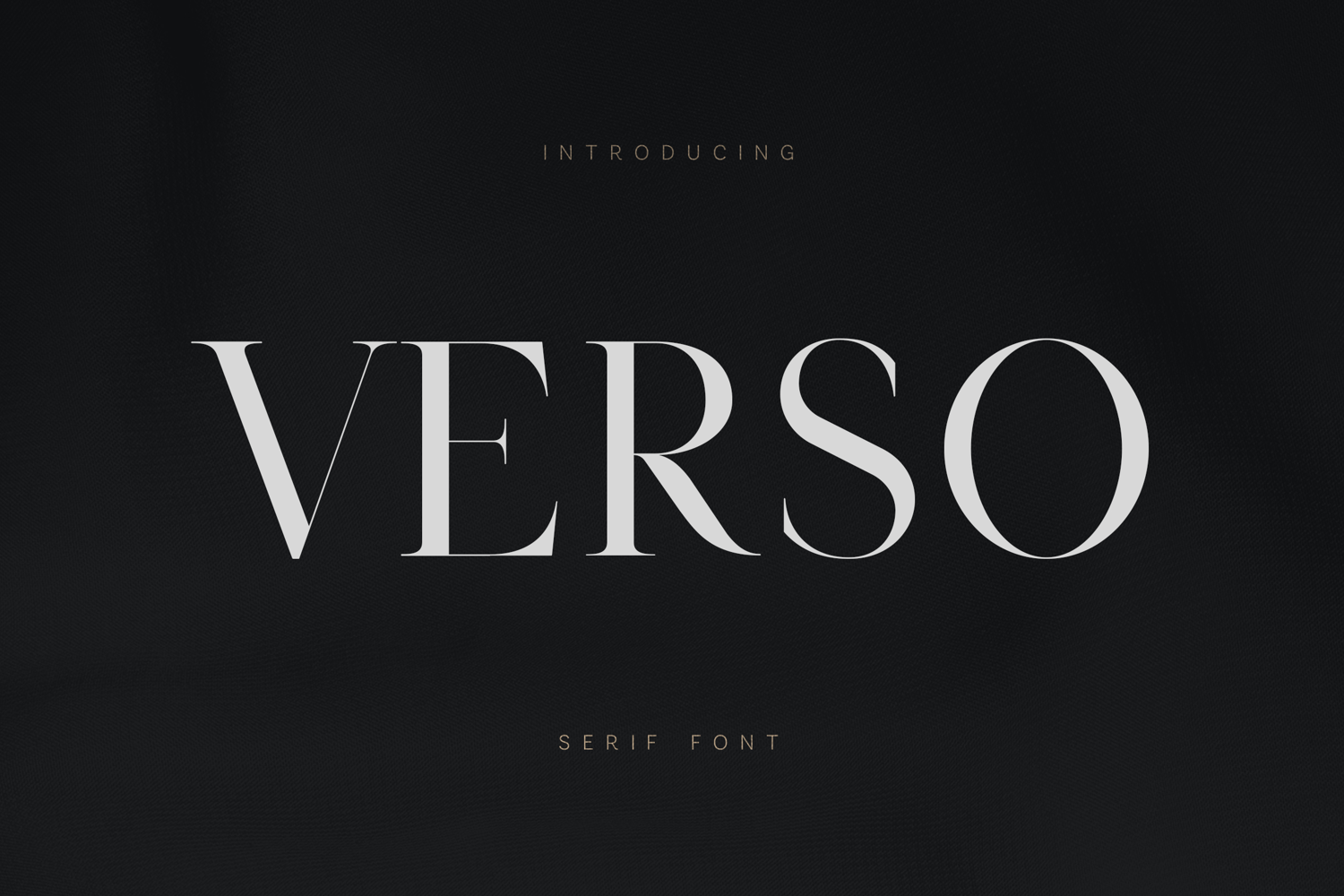
Verso Serif Elegant Modern Editorial Typeface
Verso is a refined modern serif font designed for elegant, high-end visual communication. With its sharp contrast, graceful curves, and balanced proportions, it delivers a sophisticated editorial feel perfect for premium design work.
The typeface combines classic serif structure with a contemporary touch, making it ideal for creating strong visual identity systems, stylish headlines, and timeless layouts.
Verso stands out in both large display settings and refined compositions, offering clarity, elegance, and versatility across different creative directions.
✨ Perfect for• Luxury branding
• Logo design
• Fashion editorials
• Magazine layouts
• Packaging design
• Social media visuals
• High-end typography
🔤 Features• Uppercase & lowercase
• High contrast letterforms
• Elegant serif details
• Clean & professional look